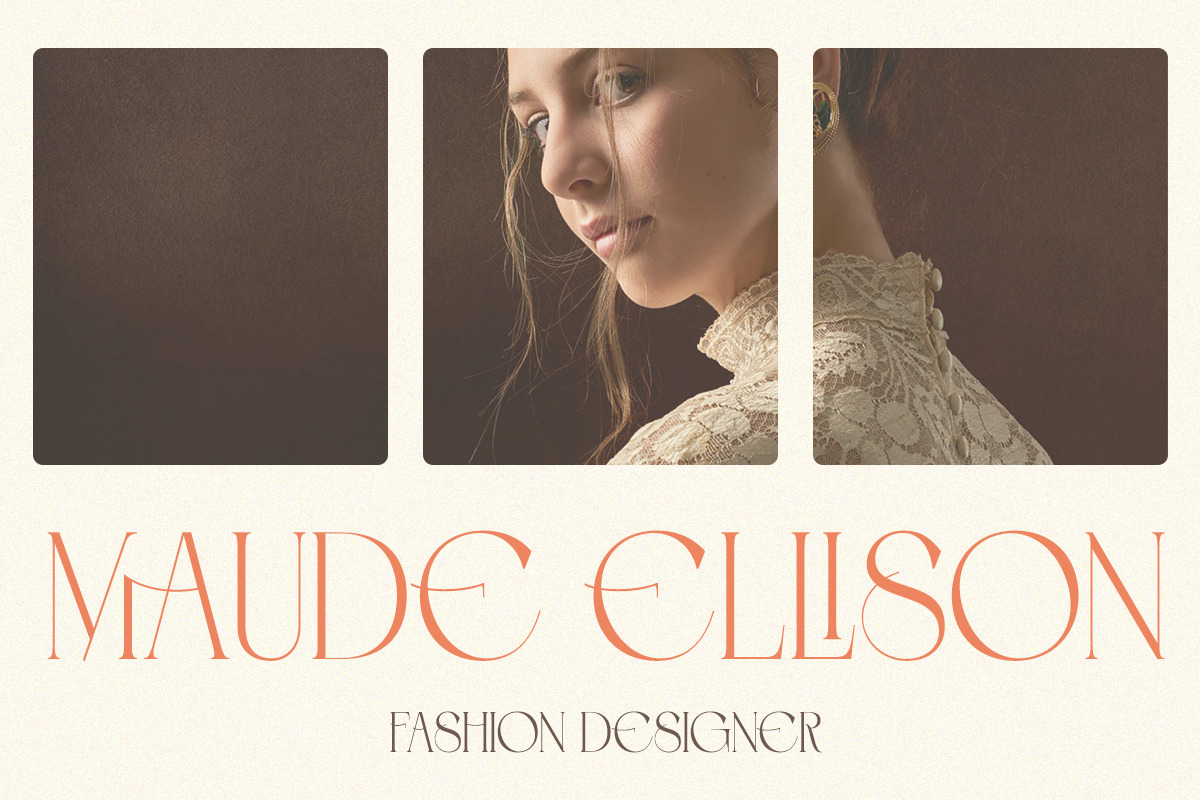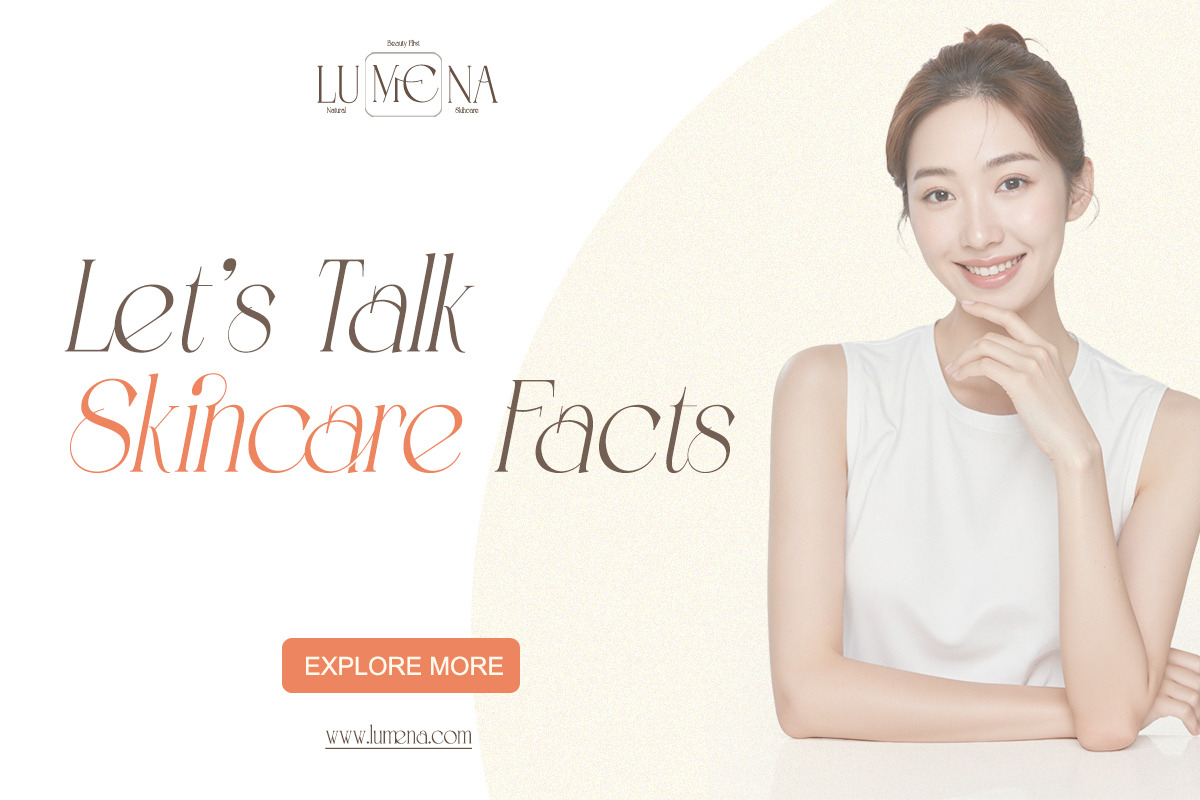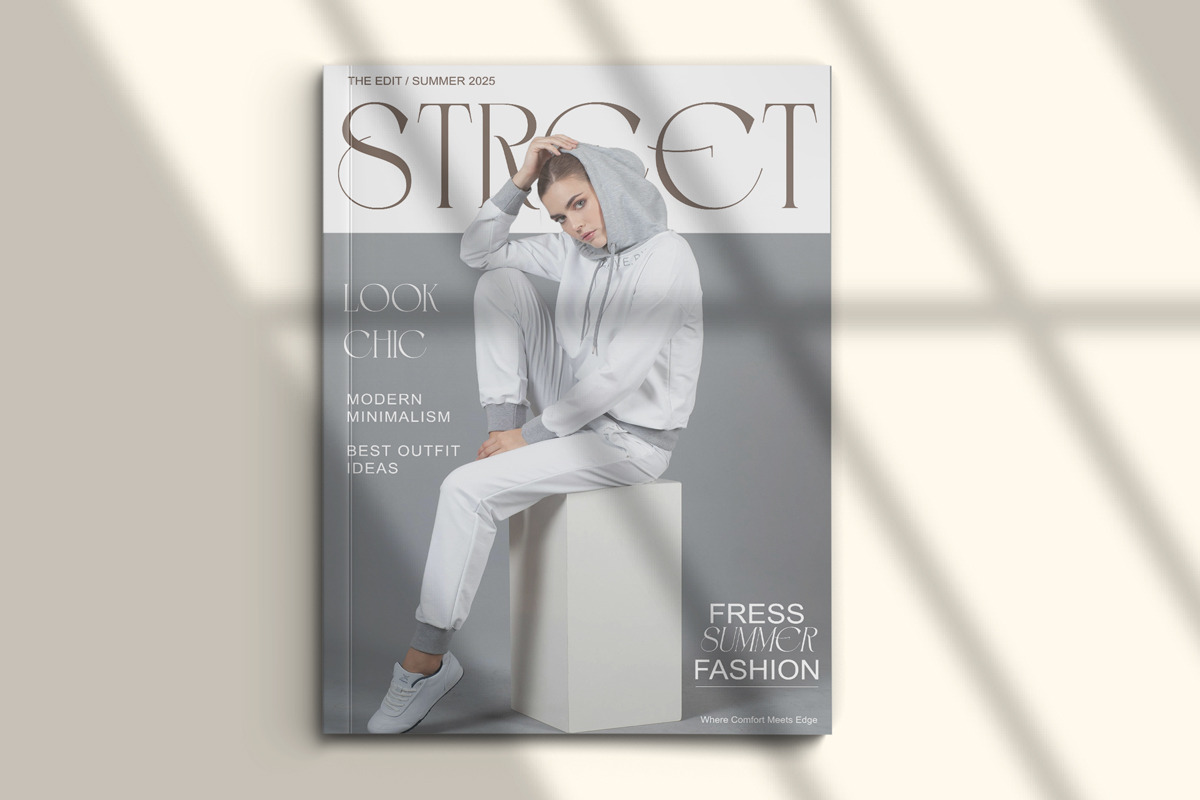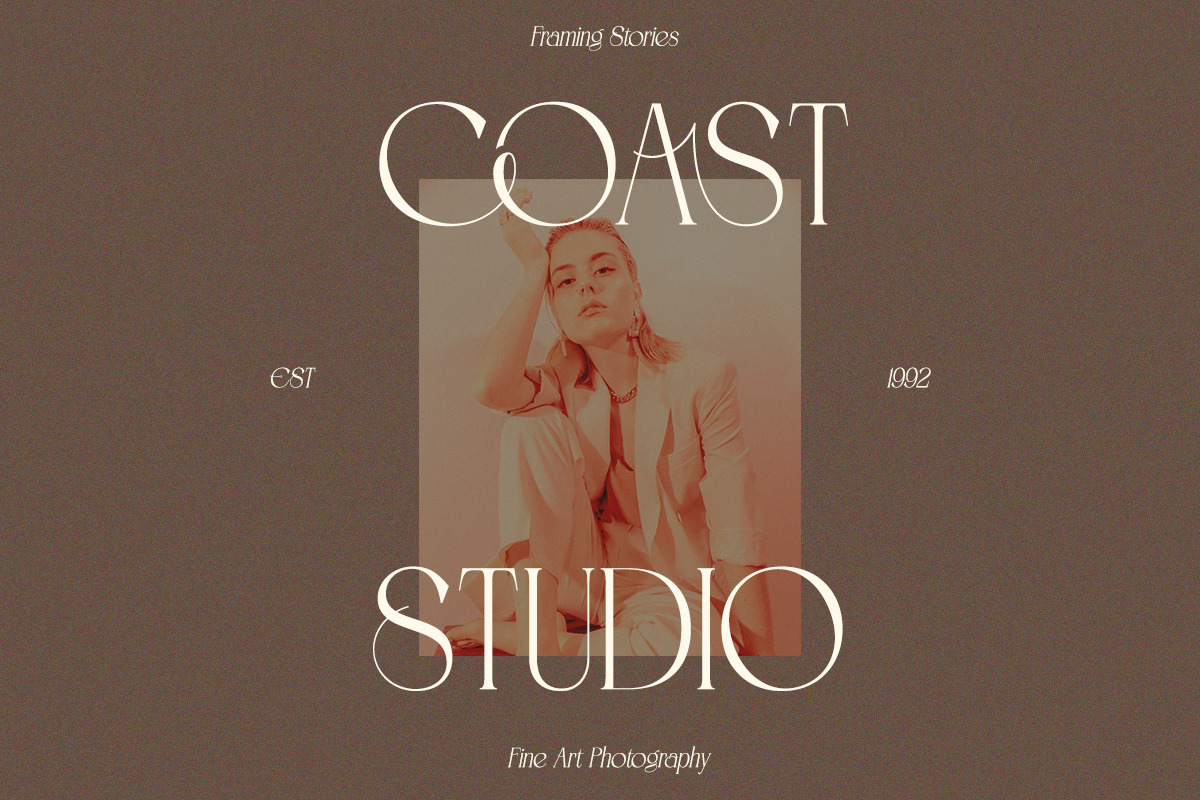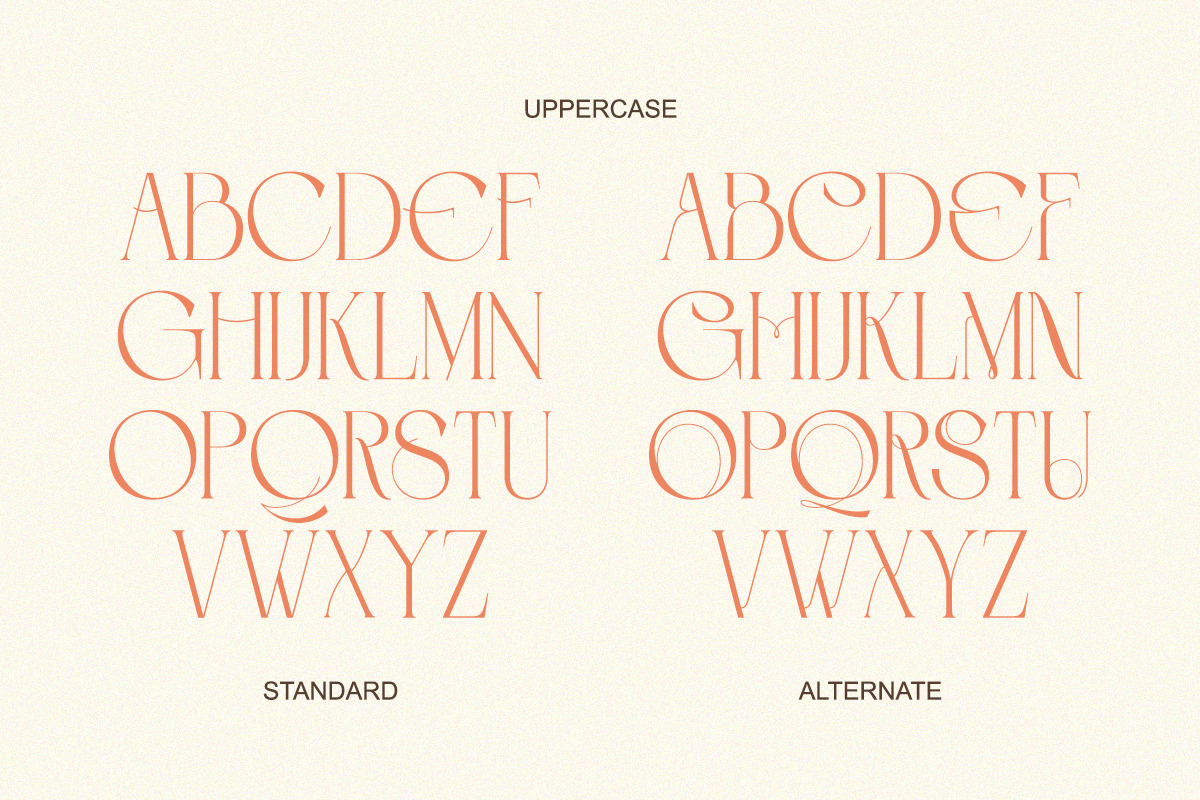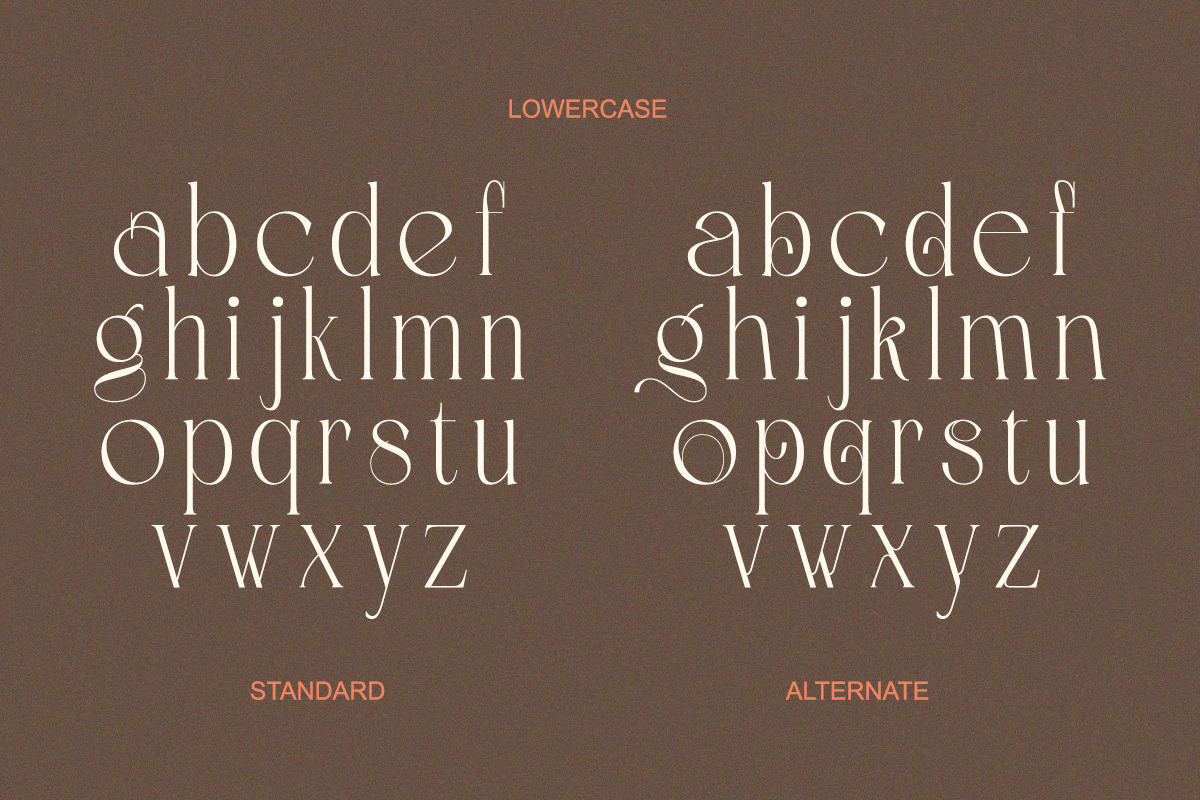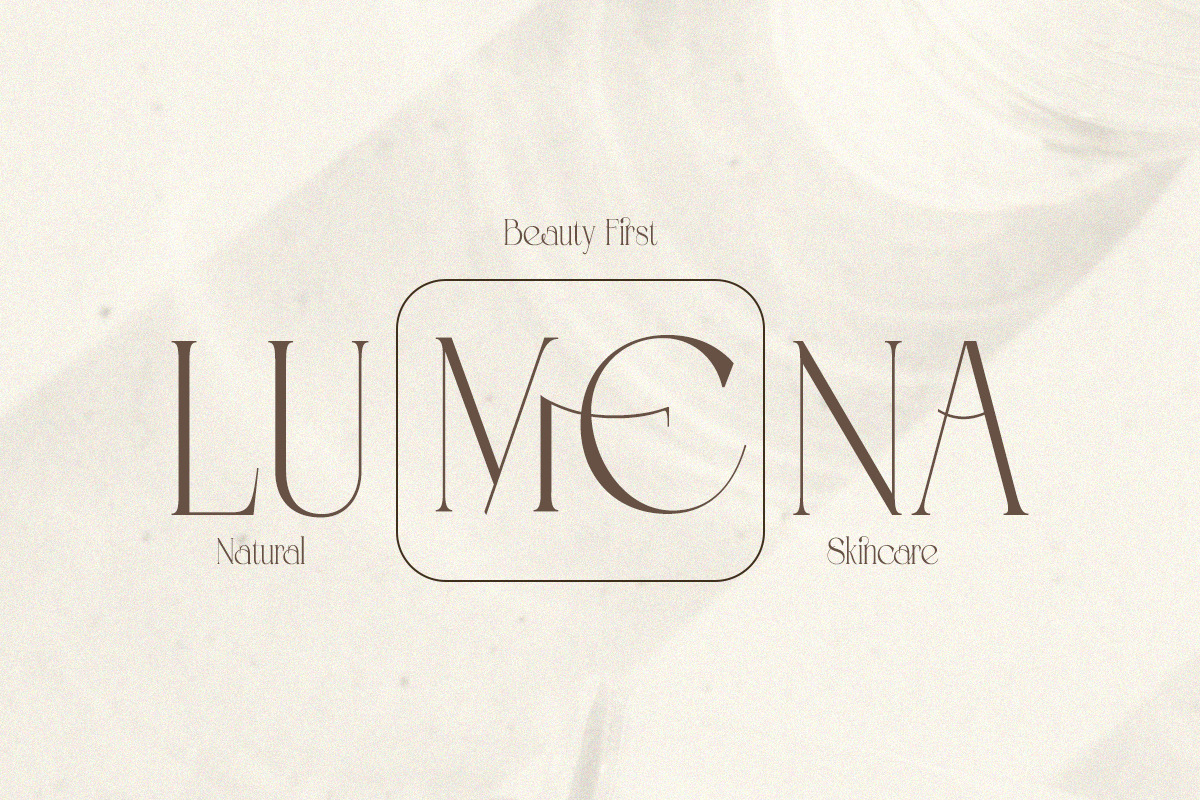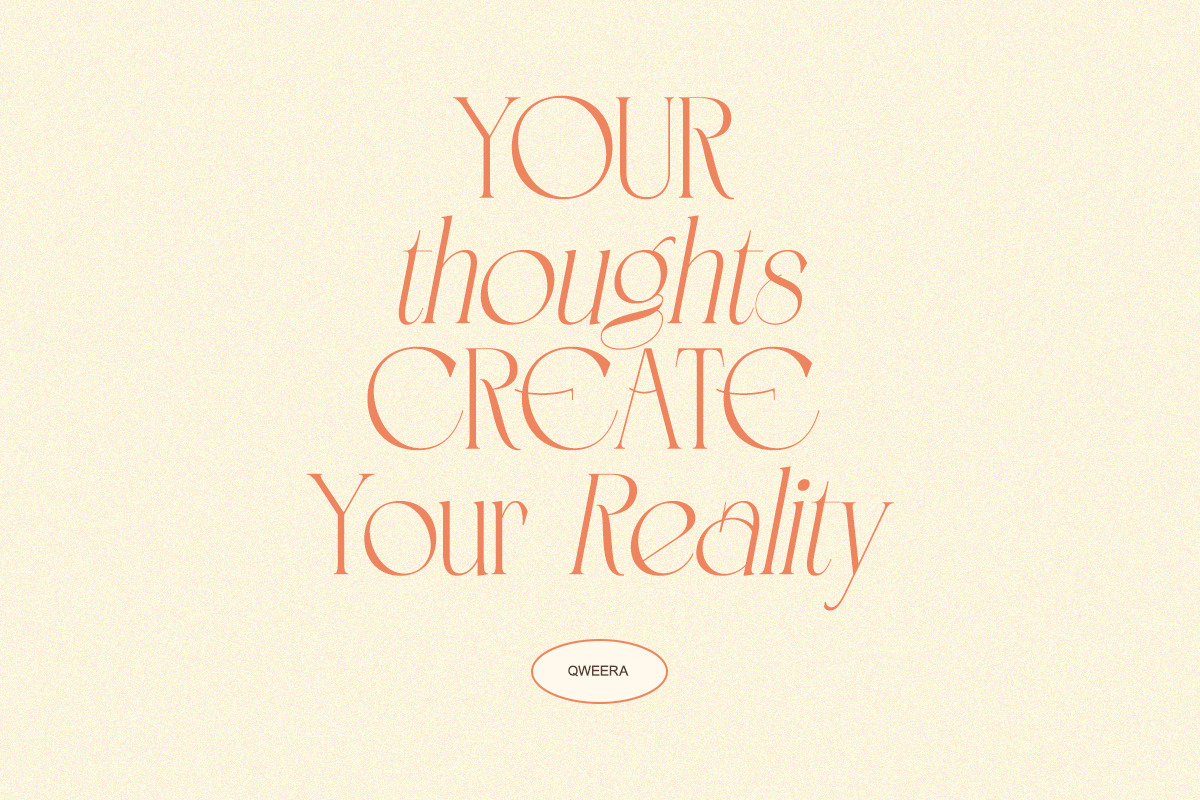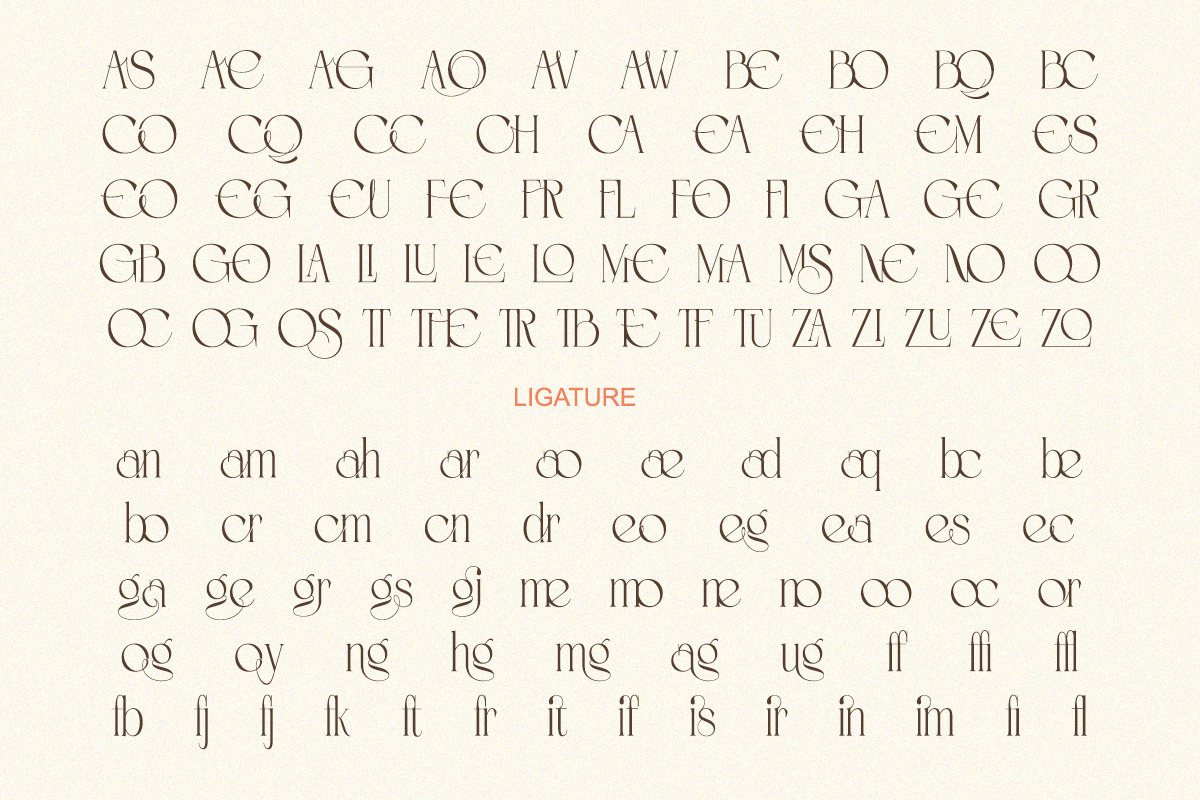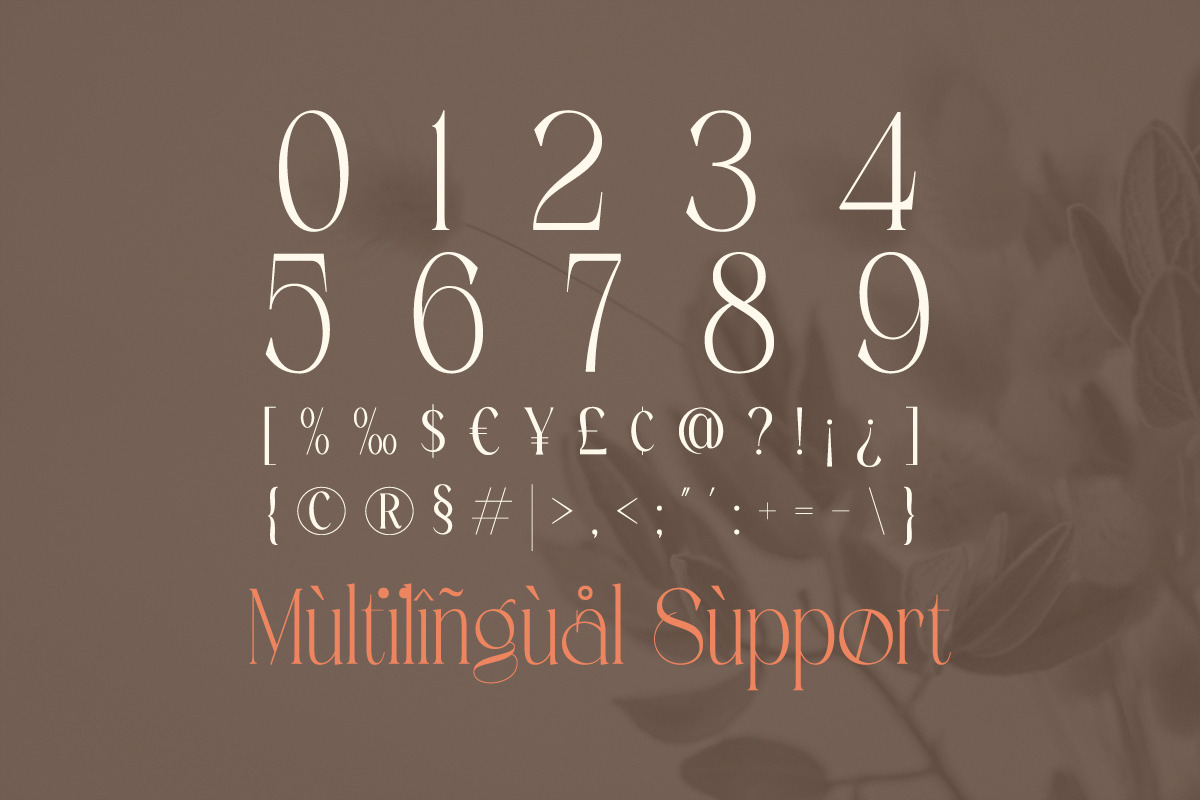
Roselight - Modern Elegant Display
Roselight is a graceful display serif font that blends elegance with modern sophistication.
Crafted with refined curves, delicate ligatures, and bold contrast, this font radiates style and creativity. Perfect for branding, fashion editorials, packaging, and logos, Roselight brings a luxurious and contemporary aesthetic to every project.
With its versatile usability, Roselight elevates any design into a timeless statement piece.
- Elegant modern display serif
- Regular & Italic
- Beautiful alternates & ligatures
- Uppercase & lowercase characters
- Fashion & lifestyle branding
- Luxury packaging & logos
- Editorial & magazine titles
- Wedding invitations & posters
- Website headers & creative ads
- Minimal & high-end identity design